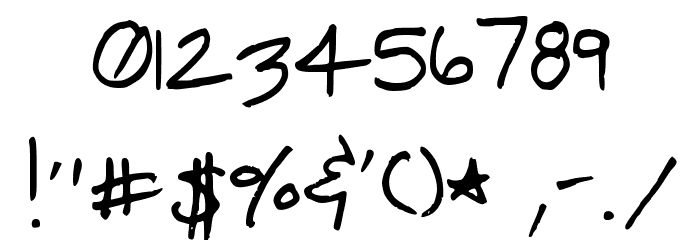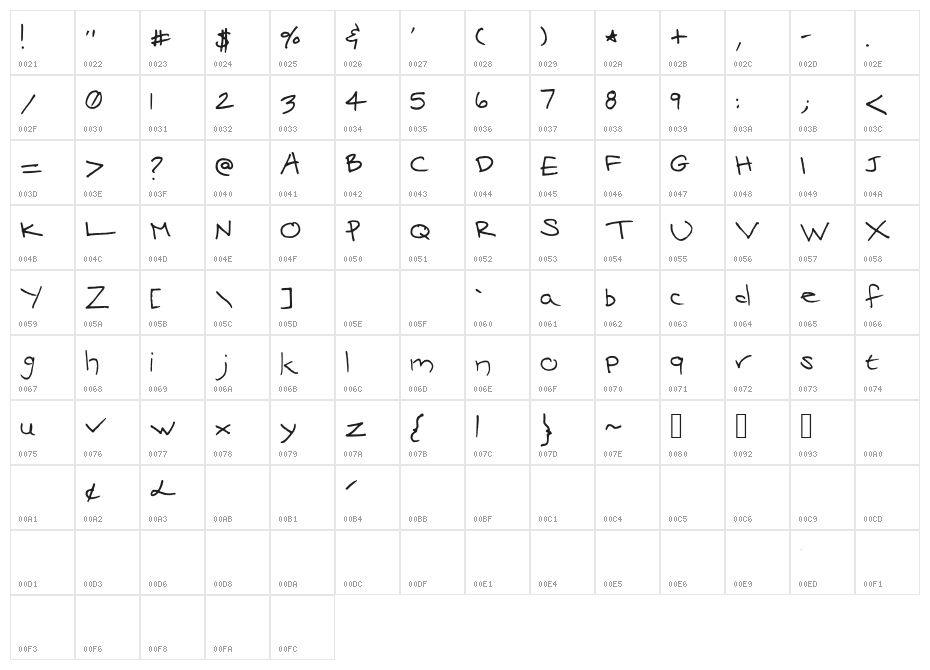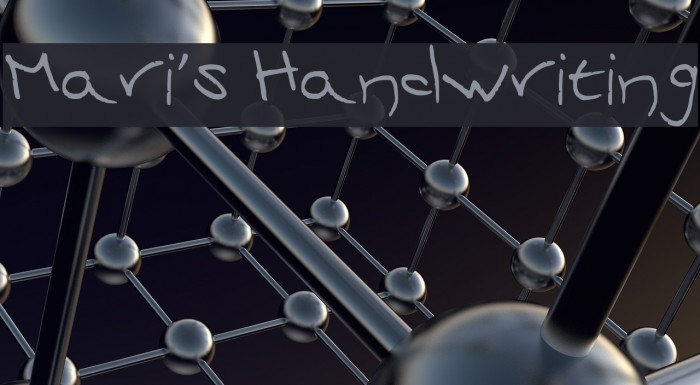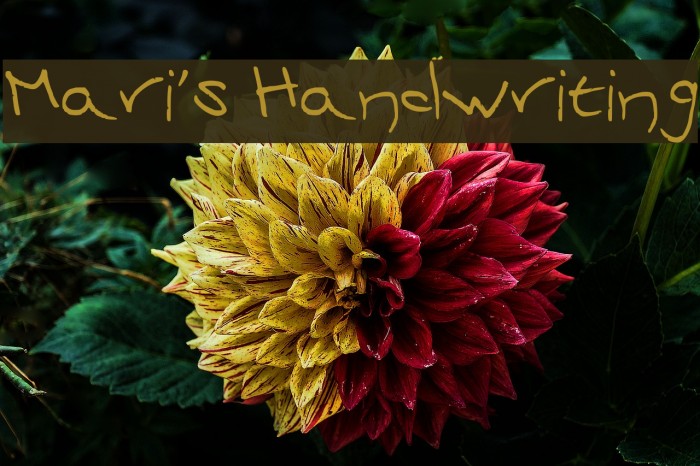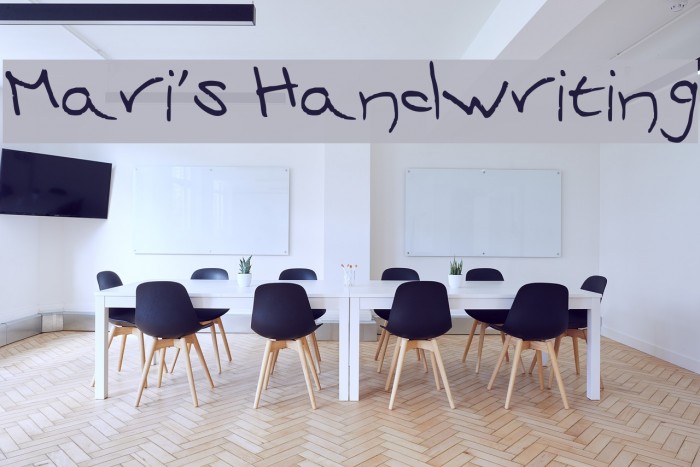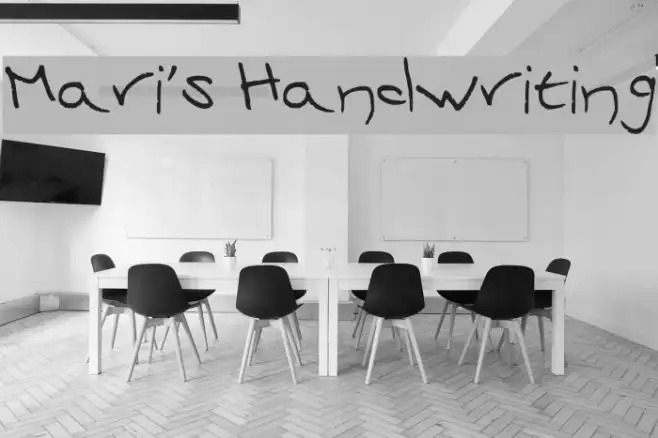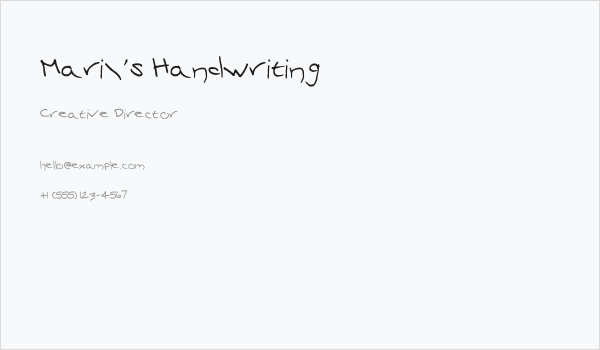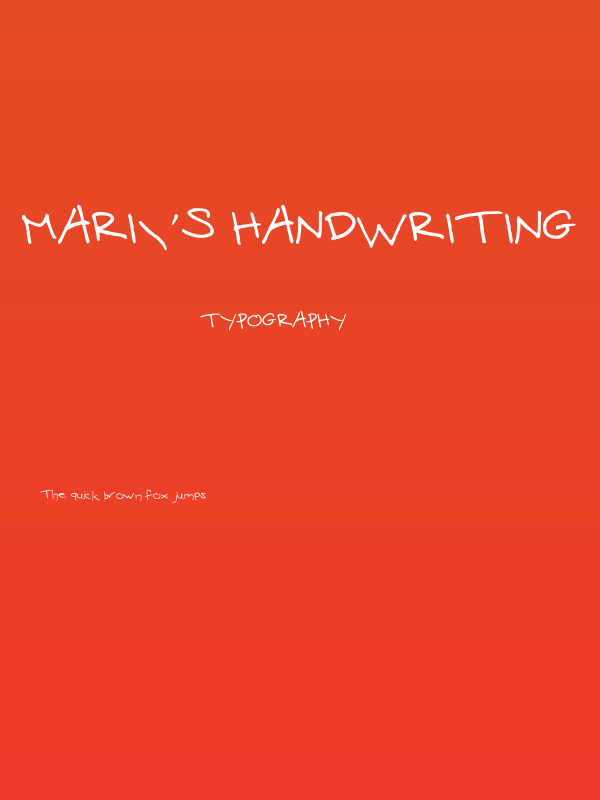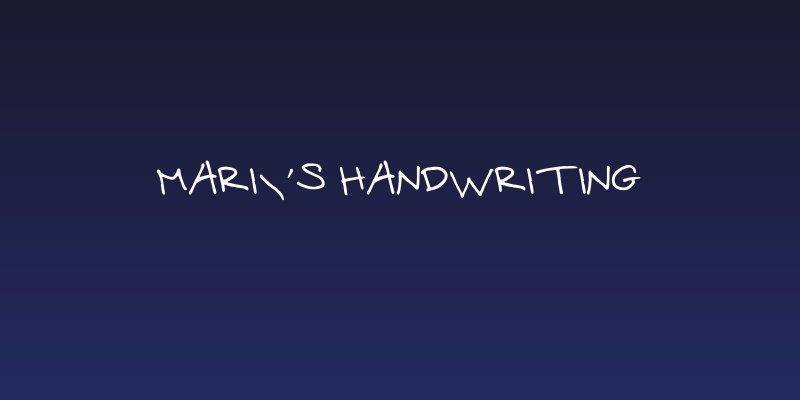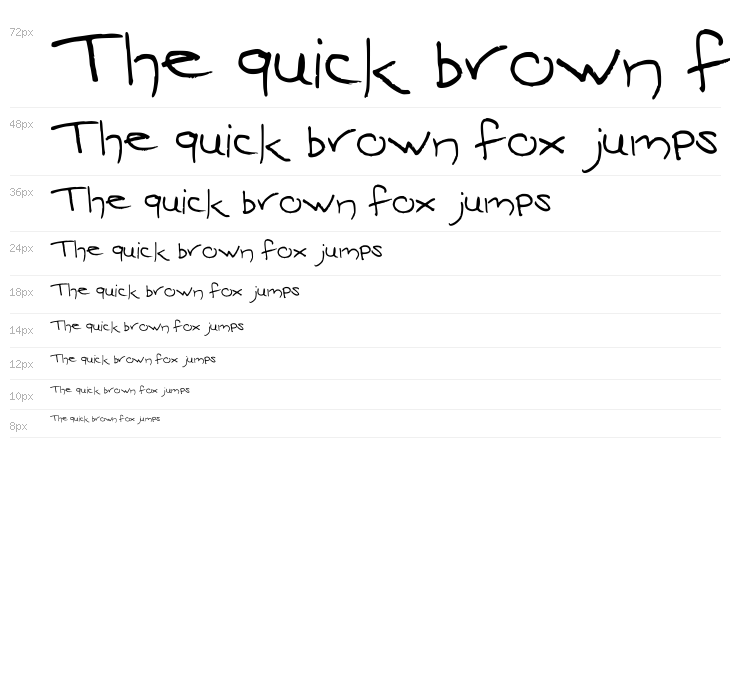
Mari's Handwriting Font
Mari's Handwriting Description
This font exudes a casual, handwritten style that mimics natural penmanship. The letters are slightly irregular, giving it an authentic, personal touch. The strokes are uneven, with a playful and informal appearance, making it ideal for projects that require a human element. The uppercase and lowercase letters maintain a consistent style, while the numerals and special characters complement the overall design. The font's organic flow and slight slant add to its charm, making it suitable for creative and expressive applications.
| Use Case | Creative projects, personal notes, informal branding. |
| Proposed Projects | Ideal for personal notes, creative projects, invitations, and informal branding. |